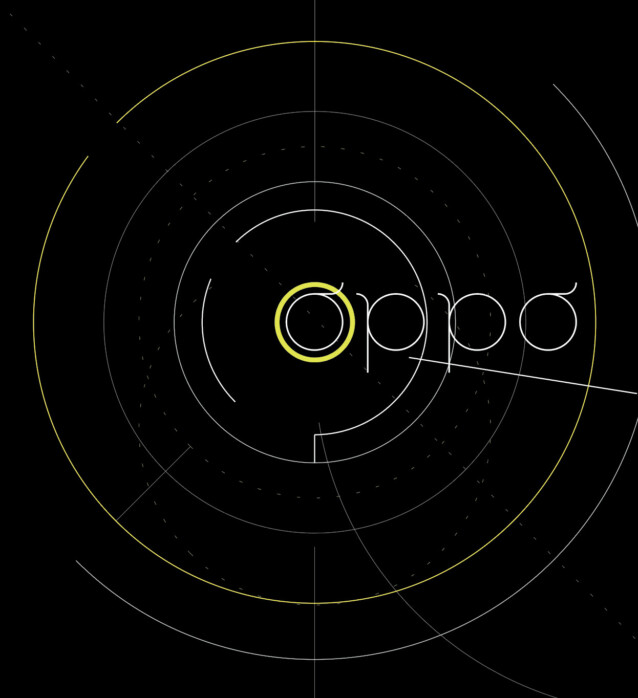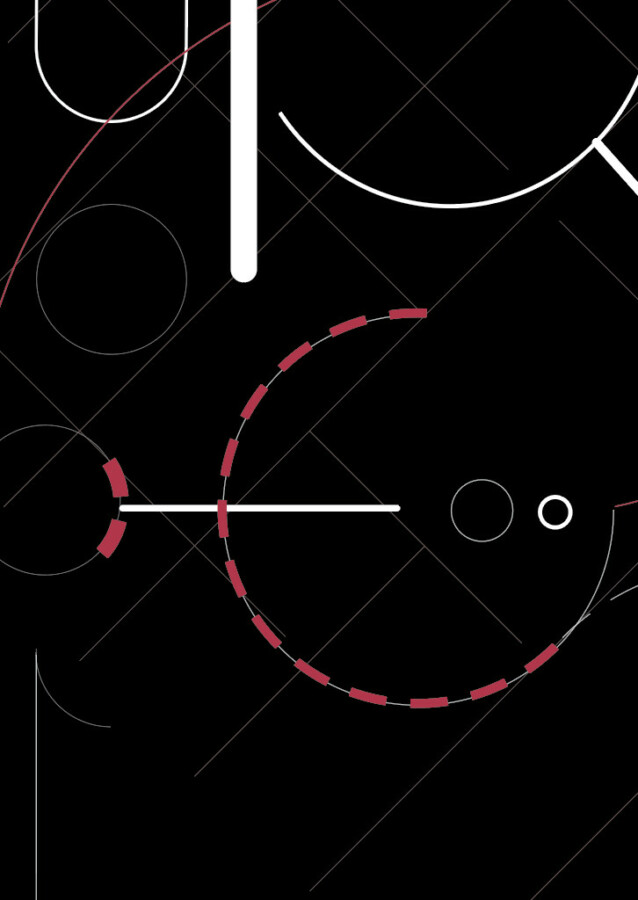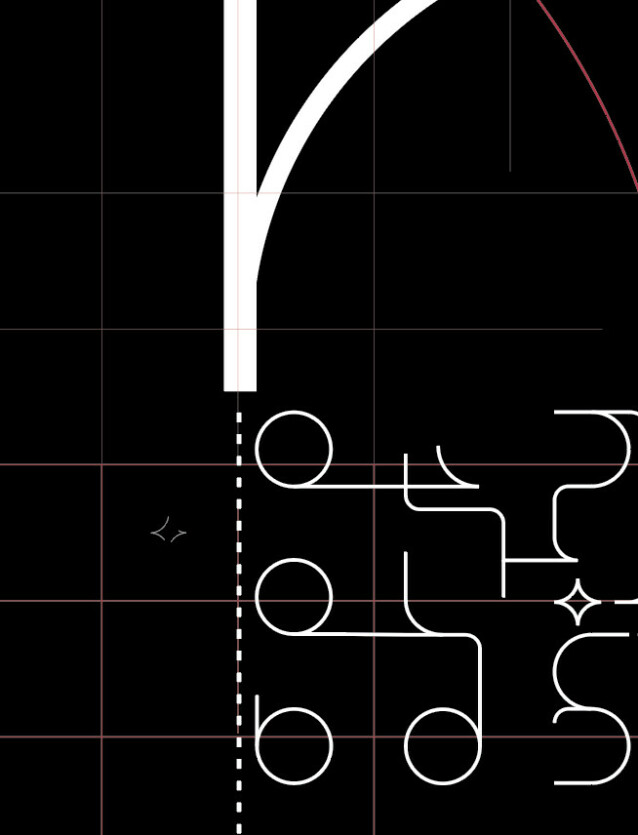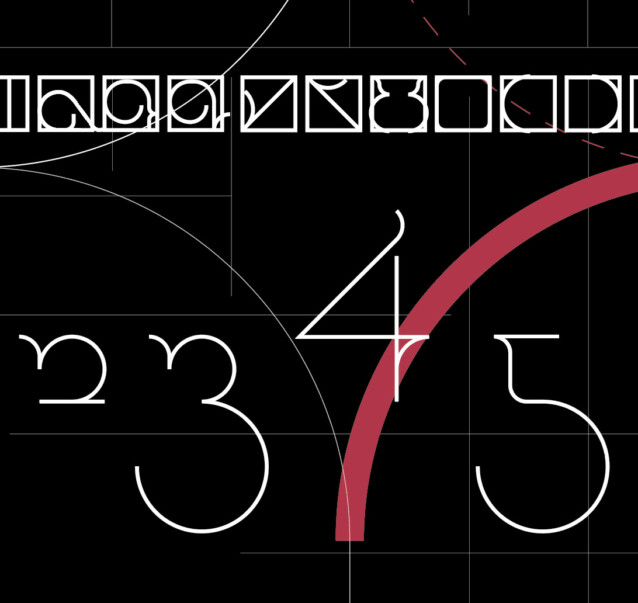
Oppo Font
Oppo Font is inspired by geometric shapes and fun extended lines and curves. Designed to promote simple yet elegant designs and accents for stationary or day to day posters, banners, etc.